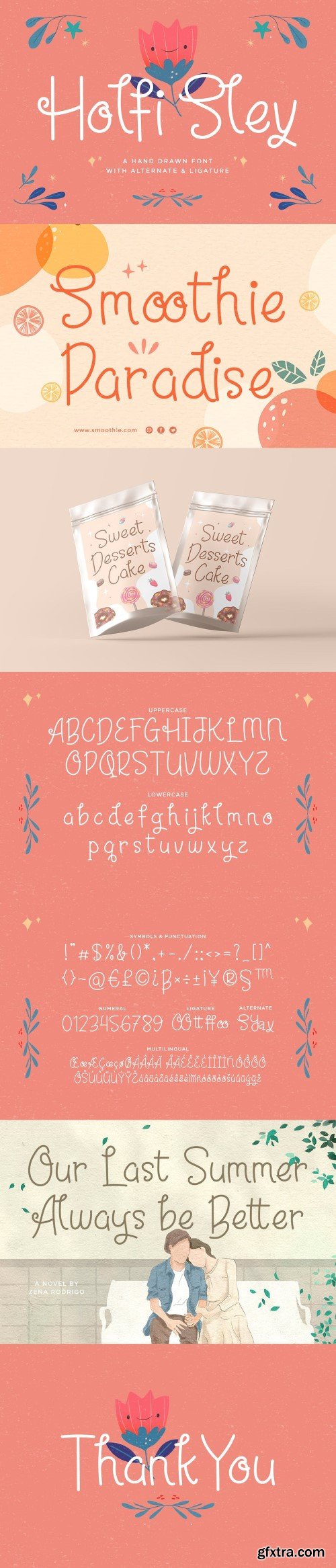
霍菲·斯莱 - 一笔画字体
Looking for a font that's both casual and creative? Look no further than "Holfi Sley" - a playful and expressive hand-drawn font that's perfect for all your design needs.
With its irregular and quirky letterforms, "Holfi Sley" is a font that's sure to add a touch of personality to your designs. Each letter is designed to look like it's been drawn by hand, giving your text a sense of authenticity and character.
Whether you're creating posters, flyers, or other promotional materials, "Holfi Sley" is the perfect font for the job. It's also great for use in packaging design, social media graphics, and other creative projects where a casual and fun font is needed.
Features:
– Uppercase – Lowercase – Symbols & Punctuation – Numeral – Ligature – Alternate – Multilingual Support